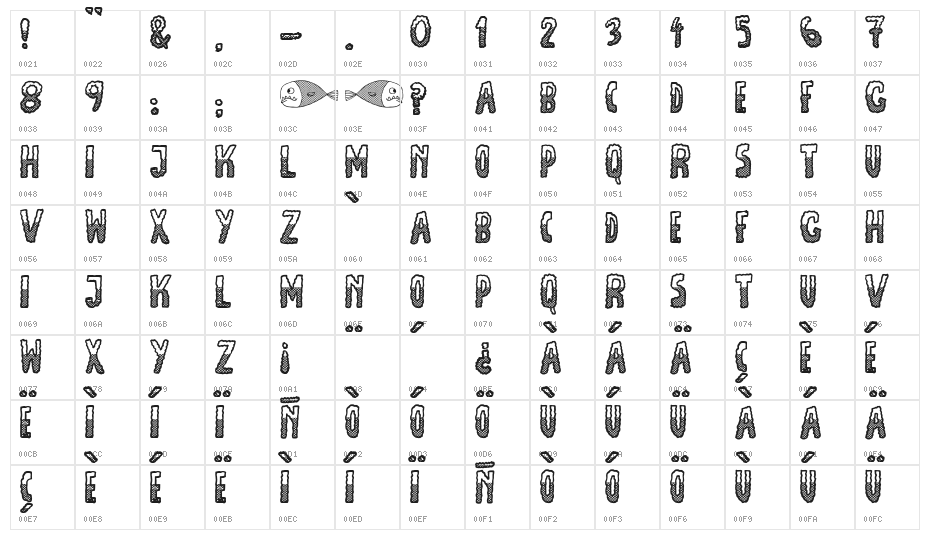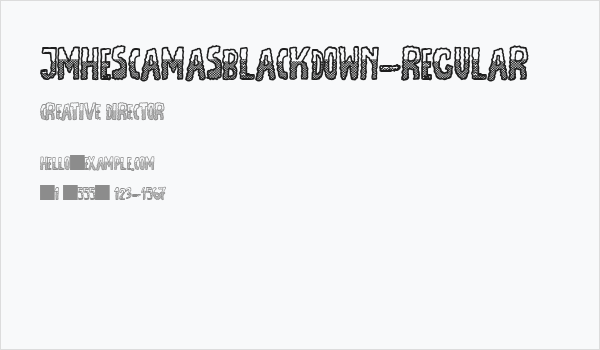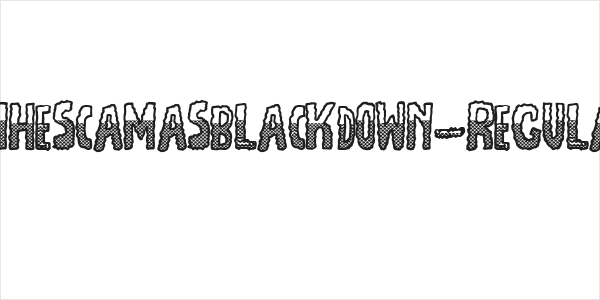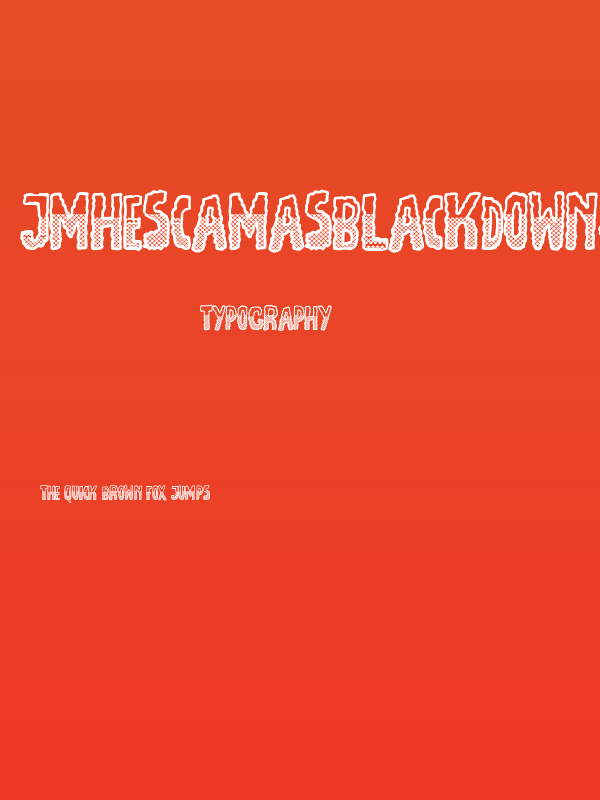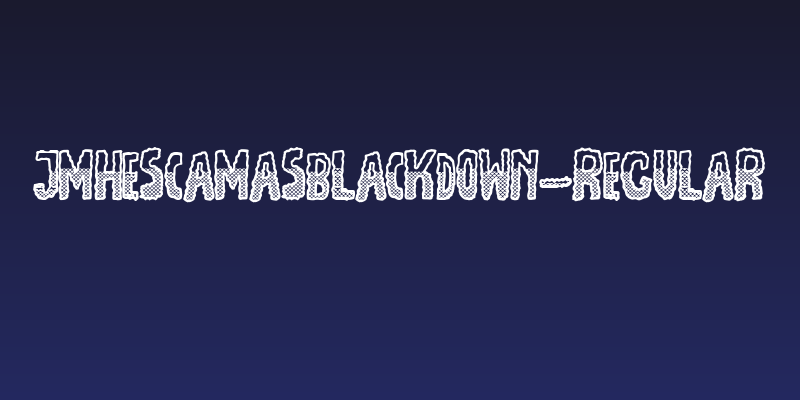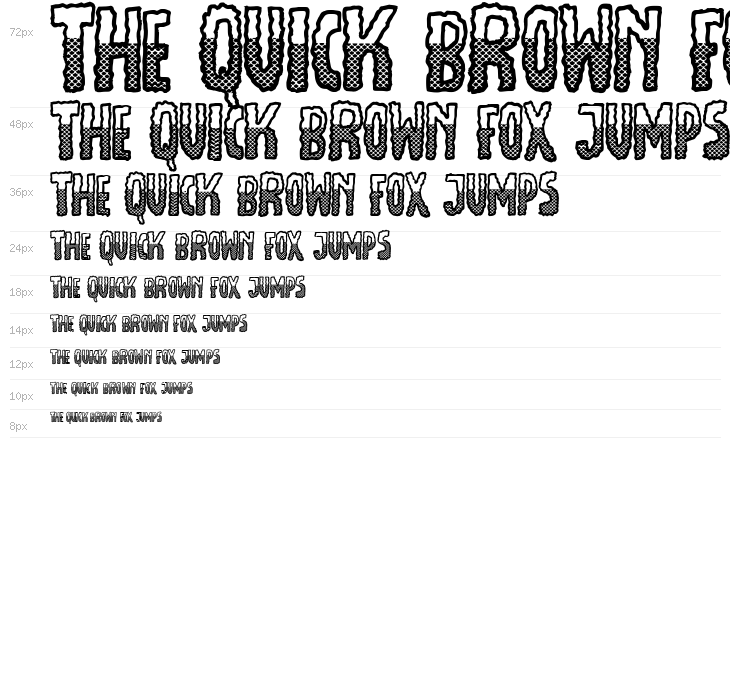
JMHEscamasBlackDown-Regular Font
JMHEscamasBlackDown-Regular Description
This font features a bold and playful design with a unique texture resembling scales or mesh. Each character is outlined with a thick border, giving it a strong presence. The interior pattern adds a dynamic and eye-catching element, making it stand out in any design. The uppercase and lowercase letters maintain a consistent style, while the numbers and special characters are equally distinctive. This font is ideal for projects that require a fun and engaging look, such as children's books, posters, or branding for creative industries.
| Proposed Projects | Ideal for children's books, creative posters, and branding for artistic ventures. |